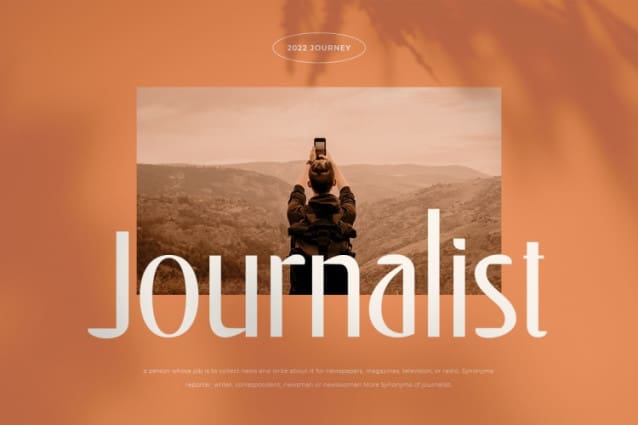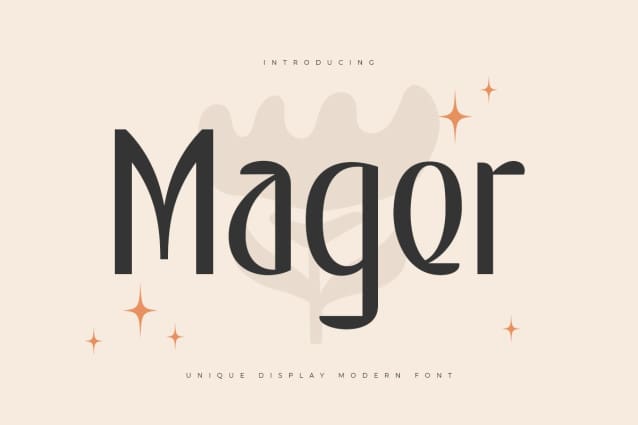
Mager Font
Mager Font is a A Modern Display serif font for Vintage, classic, and retro branding needs. Based on our experience as a graphic designer who works for a lot of companies, we often are requested to design a logo in a unique style but with an unique shape. So, we try to brainstorming and create this font to make the idea is going out. This is perfect for BRANDING and LOGO DESIGN. You will get vintage, classic, and certainly unique logos with this font.